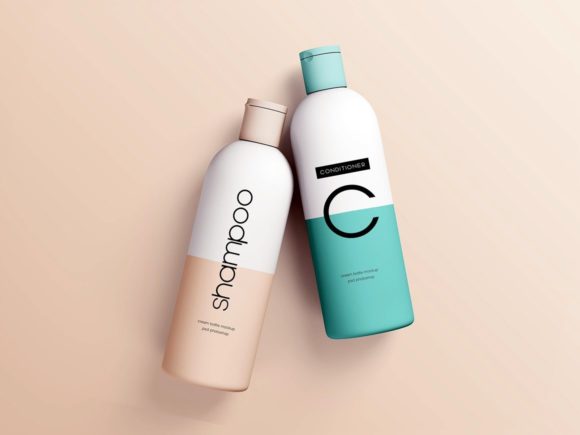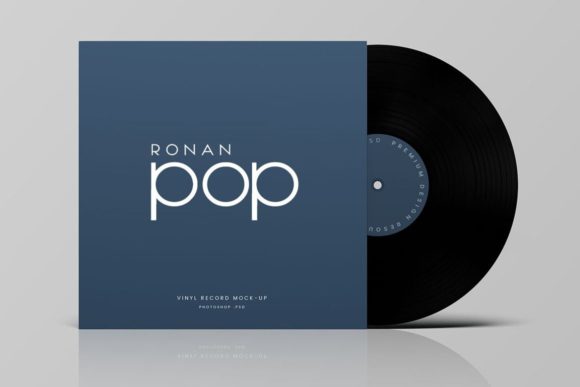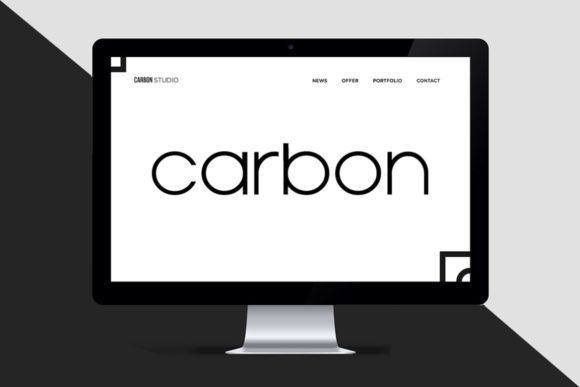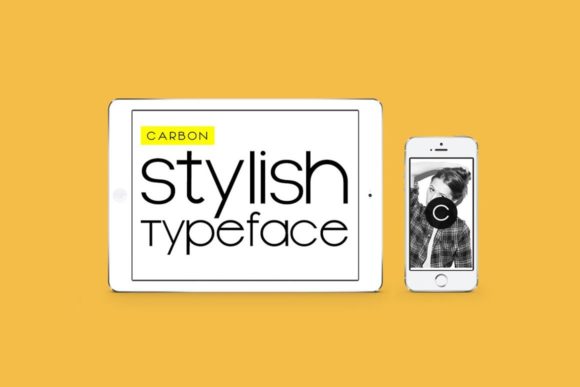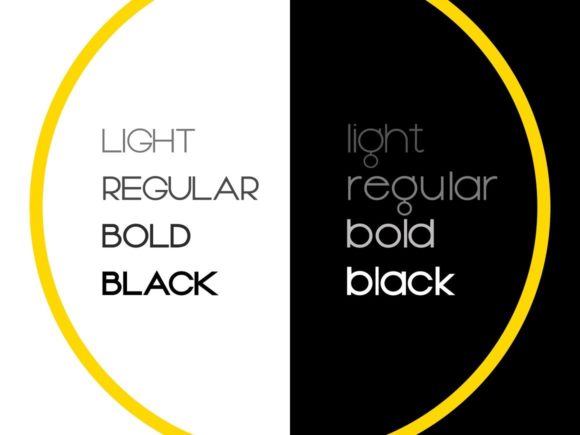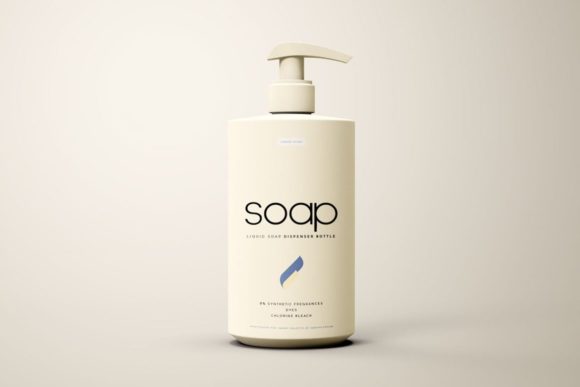
Unleash the Power of Carbon Font in Your Next Design Project
Have you ever sat in front of a blank canvas, staring at a sea of possibilities, and thought, “What if I could take my design to the next level?” That’s exactly where the Carbon Font comes in – a sleek and modern display font designed to elevate your creative vision.
This versatile font is the perfect companion for any project, whether you’re crafting a logo, building a brand, or creating a stunning visual identity. With its minimal and neat design, Carbon Font can seamlessly adapt to a wide range of styles and themes, making it an invaluable asset for designers.
Carbon Font Key Features
- Unique Characteristics: Carbon Font features a modern, sans-serif design with a unique blend of geometric and organic elements, giving it a distinctive look and feel.
- Scalability: Carbon Font is designed to be highly scalable, ensuring that it looks great at both small and large font sizes, making it ideal for use in digital and print applications.
Carbon Font Review
As a designer, I’ve had the chance to experiment with Carbon Font, and I have to say, it’s been a mixed bag. Here’s my honest take on what works and what doesn’t.
- Modern aesthetic: Carbon Font has a sleek, modern feel that’s perfect for contemporary designs.
- High legibility: The font is highly legible, even at small font sizes, making it ideal for digital designs.
- Customization options: Carbon Font offers a range of weights, styles, and sizes, giving designers plenty of flexibility.
- Learning curve: Carbon Font has a unique set of features and styling options, which can be overwhelming for new users.
Overall impression
Carbon Font is a solid choice for designers who want a modern, high-legibility font with plenty of customization options. However, its unique features and limitations may require some trial and error to master. With a bit of patience and practice, Carbon Font can be a powerful tool in your design arsenal.
Carbon Font is a versatile font that can be used for a variety of design projects. Some common use cases include:
- Creating modern and sleek logos.
- Designing digital products and apps.
- Developing branding materials and marketing campaigns.